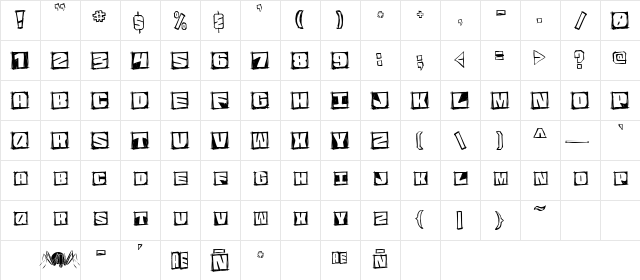
GraphicAttitude Mono
Design Context for GraphicAttitude Typeface
GraphicAttitude uses fixed-width spacing throughout, giving it the structured, systematic character associated with coding environments and technical documentation.
A natural fit for code editors, technical documentation, developer-focused branding, and terminal-inspired UI.
Pro Tip: Pair GraphicAttitude with a proportional sans for UI contexts where code-style labels and regular body copy need to coexist.